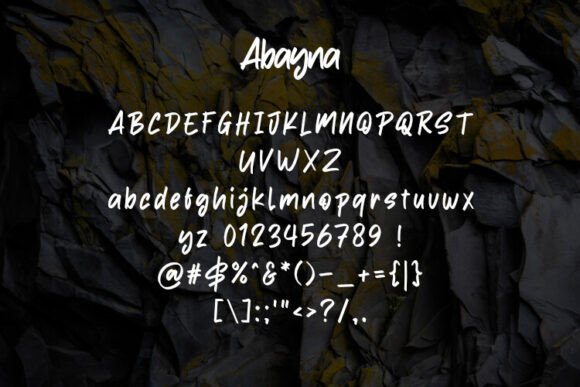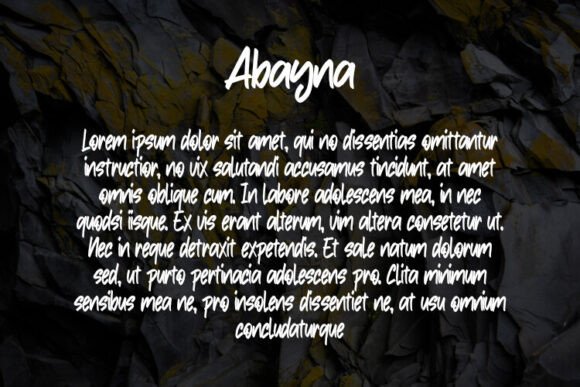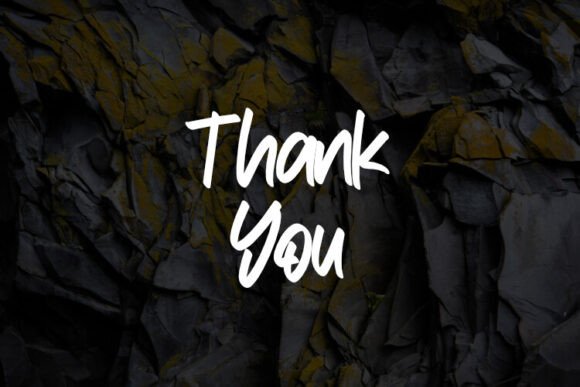
Introducing Abayna Font: Elevate Your Clothing Designs with Versatility and Style
In the world of design, the right font can make all the difference. Whether you’re a professional designer or a crafty DIY enthusiast, finding the perfect font for your clothing designs can be a daunting task. That’s where Abayna Font comes in – a game-changing, versatile font that’s specifically designed to breathe life into your t-shirts, apparels, and other clothing designs.
What is Abayna Font?
Abayna Font is a carefully crafted, universal font that’s perfect for use across all design platforms and software. Its unique design ensures that it looks great on any device, making it an ideal choice for designers and crafters who want to create stunning clothing designs that stand out from the crowd.
Key Features of Abayna Font
- Universal Applicability: Abayna Font is designed to work seamlessly across all design platforms and software, making it easy to use for designers and crafters of all levels.
- Versatility: Abayna Font is perfect for a wide range of clothing designs, from t-shirts to apparels, and can be used for various design projects, including logos, branding, and more.
Benefits of Using Abayna Font
So, why choose Abayna Font for your clothing designs? Here are just a few benefits of using this amazing font:
- Save Time: With Abayna Font, you can create stunning clothing designs in no time. Its ease of use and versatility ensure that you can focus on the creative aspect of design, rather than spending hours searching for the perfect font.
- Enhance Your Designs: Abayna Font is designed to add a touch of style and sophistication to your clothing designs. Its unique design ensures that your designs stand out from the crowd, making it perfect for designers and crafters who want to create something truly special.
Who is Abayna Font for?
Abayna Font is perfect for:
- Professional Designers: If you’re a professional designer looking for a versatile font that can be used across all design platforms and software, Abayna Font is an excellent choice.
- DIY Enthusiasts: If you’re a crafty DIY enthusiast who loves creating custom clothing designs, Abayna Font is a great addition to your design toolkit.
- Small Business Owners: If you own a small business and want to create custom clothing designs for your brand, Abayna Font is an affordable and effective solution.
In conclusion, Abayna Font is a versatile and stylish font that’s perfect for clothing designs. Its universal applicability, ease of use, and OTF file format make it an ideal choice for designers and crafters of all levels. Whether you’re a professional designer or a DIY enthusiast, Abayna Font is sure to elevate your clothing designs and take your creativity to the next level.